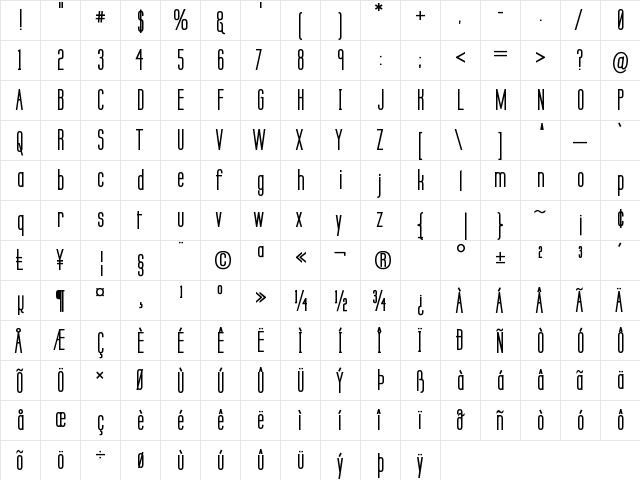
Labtop Secundo Bold
Design Context for Labtop Secundo Typeface
Labtop Secundo takes a measured approach to typography — its balanced proportions and neutral character make it a reliable workhorse for both digital and print work. Its bold stroke weight gives it real presence on the page.